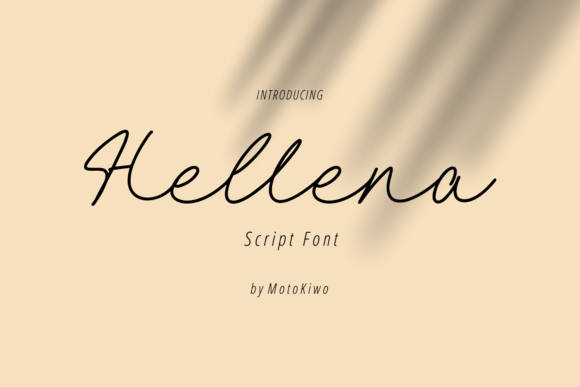
Unleash Your Creativity with Hellena Font
Have you ever been stuck in a creative rut, staring blankly at a blank page, waiting for inspiration to strike? For many designers, this feeling is all too familiar. But what if we told you that the perfect solution is just a few clicks away? Introducing Hellena Font, a delicate and flowing handwritten font that will transport your designs to new heights.
This gorgeous font is perfect for adding a touch of elegance to your wedding invitations, creating beautiful stationery art, or even making a statement on social media. And the best part? Hellena Font is incredibly versatile, allowing you to experiment with different styles and layouts to suit your unique vision.
Hellena Font Key Features
- Unique Characteristics: Hellena Font features a distinctive, elegant script design with refined lines and subtle flourishes, making it an ideal choice for creative and formal applications.
- Font Weight: Hellena Font is available in multiple weights, including light, regular, bold, and italic, allowing designers to achieve a range of visual effects.
Hellena Font Review
As a designer, I was excited to dive into the Hellena font and see what it had to offer. Overall, I was pleasantly surprised by its unique characteristics.
- Unique, cursive script style that’s perfect for adding a touch of elegance to designs.
- Highly legible, even at smaller font sizes, making it ideal for body text.
- Comes in a range of weights, from light to bold, allowing for flexibility in design.
- Some characters may appear a bit inconsistent in their spacing, which can affect the overall flow of text.
- Lack of support for certain languages, which may limit its use in multilingual designs.
- Not ideal for use in bold, headline text, as it can become difficult to read at larger sizes.
Overall, the Hellena font is a solid choice for designers looking for a unique, elegant script font. While it may have some limitations, its strengths make it a valuable addition to any design toolkit.
The Hellena Font is ideal for use in:
- Brand identity and logos
- Headings and titles in marketing materials
- Body text in digital and print publications
- Wedding invitations and event materials